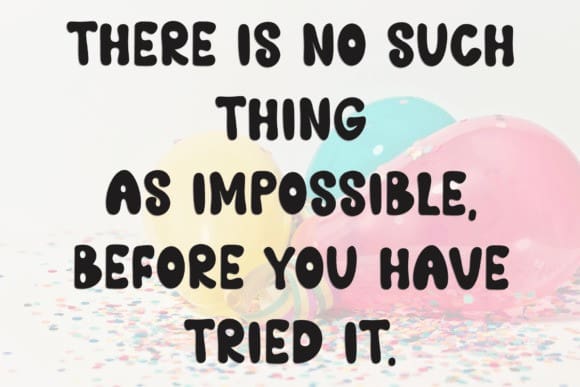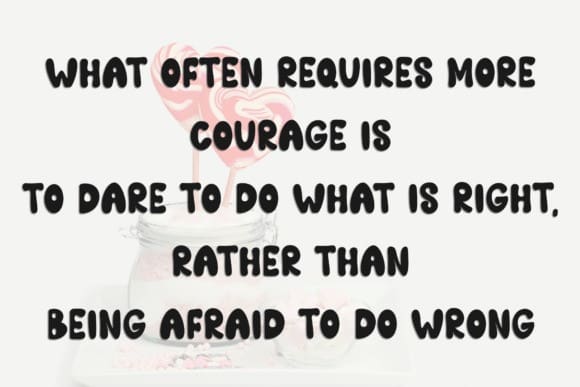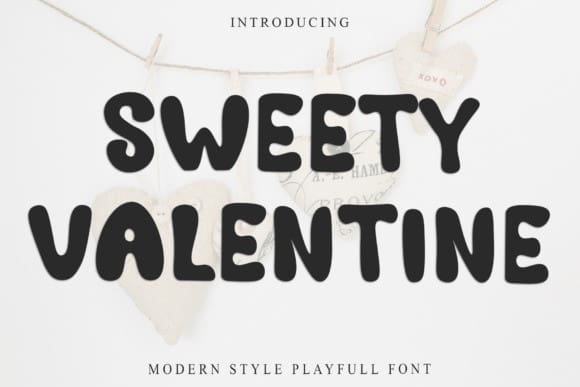
Sweety Valentine Script Font
Sweety Valentine Script Font is a cute and playful round display font. Its soft, bubbly letters make it perfect for fun designs, greeting cards, or anything romantic and sweet!